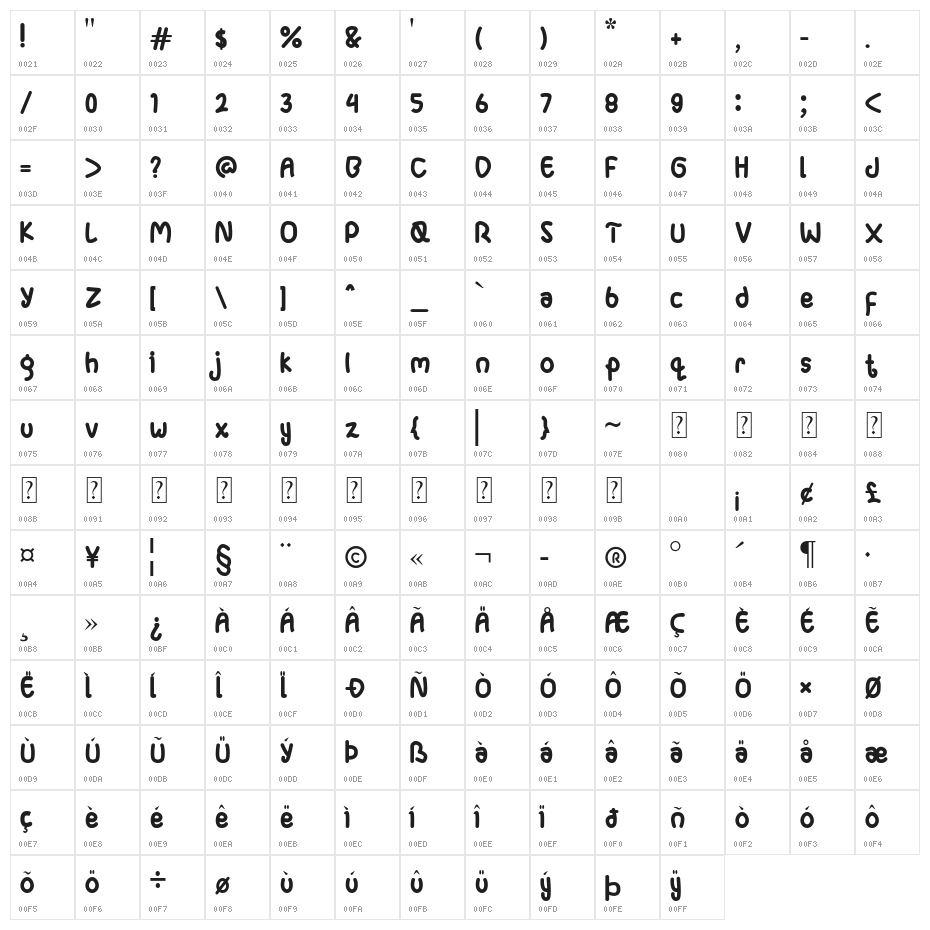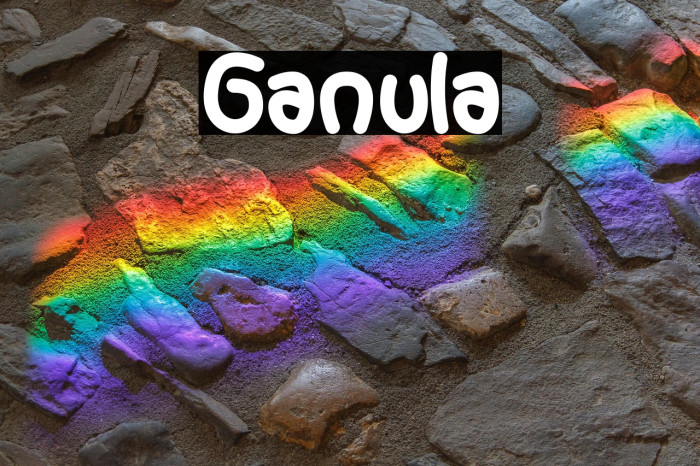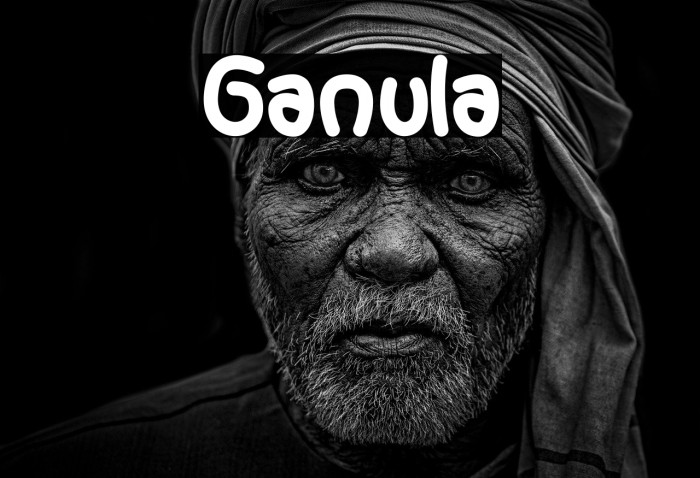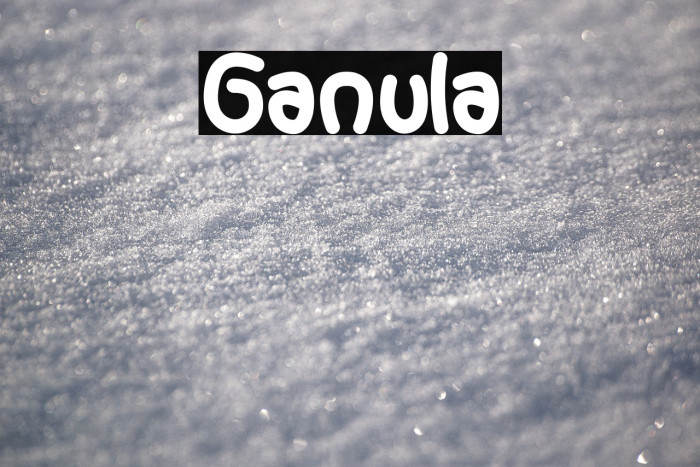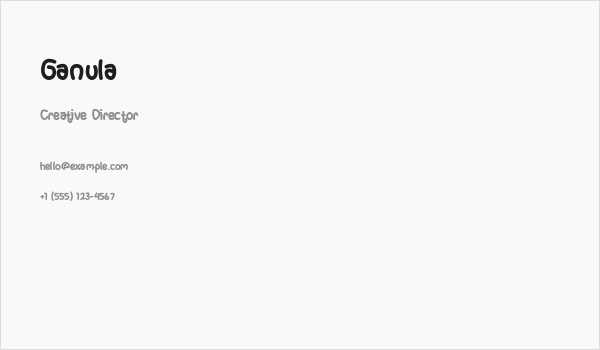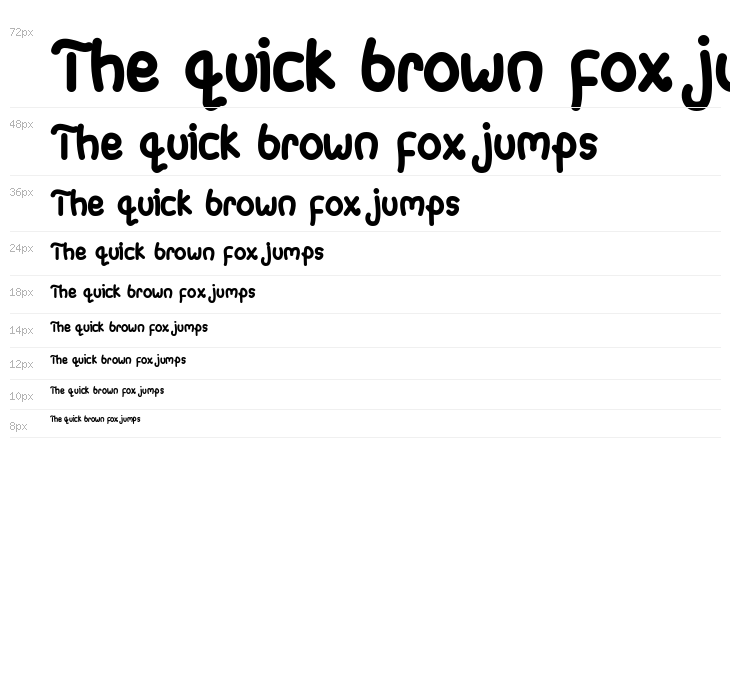
Ganula Font
Ganula Description
This playful and bold font features rounded, thick strokes that give it a friendly and approachable appearance. The characters are slightly irregular, adding a whimsical touch to the overall design. The uppercase and lowercase letters maintain a consistent style, with smooth curves and a hand-drawn feel. The numbers and special characters are equally bold and rounded, ensuring uniformity across all elements. This font is ideal for projects that require a fun and informal tone, such as children's books, party invitations, or playful branding materials.
| Proposed Projects | Ideal for children's books, party invitations, playful branding, and informal designs. |